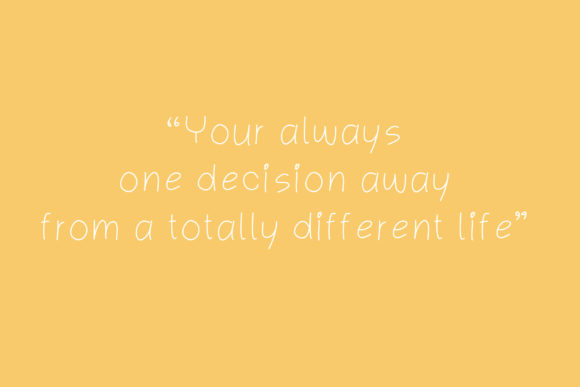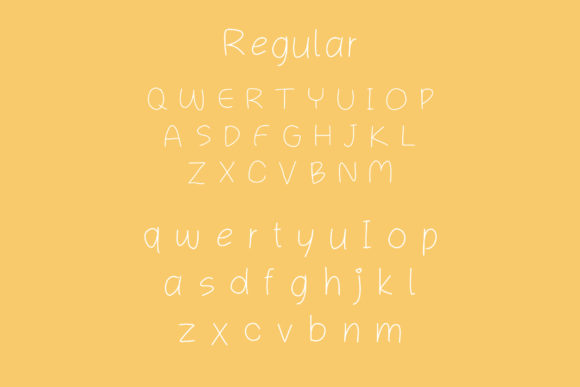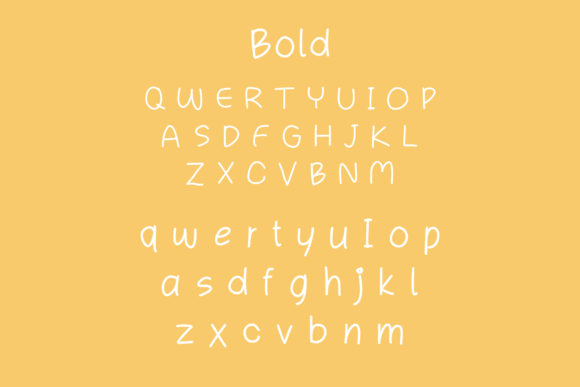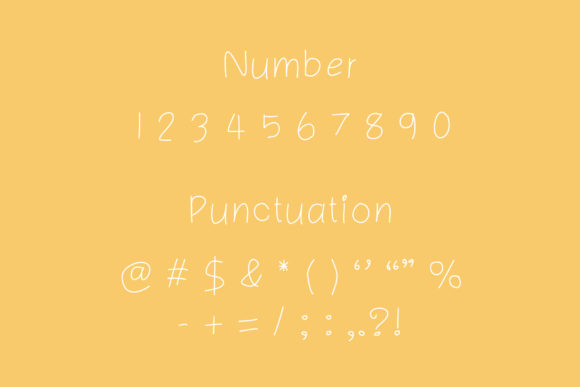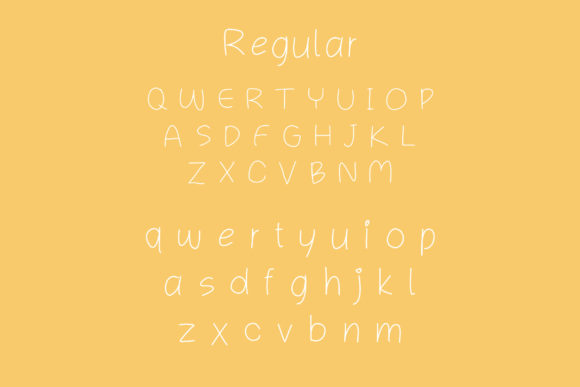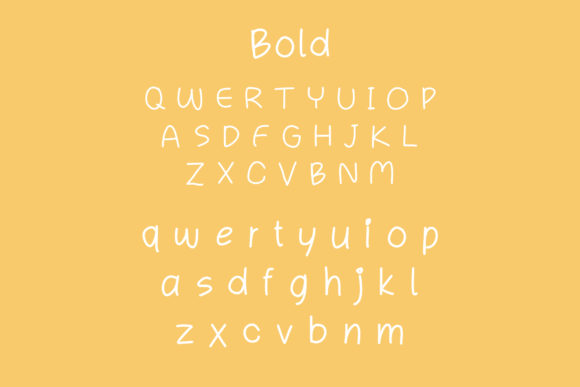
Introducing Finley Font: The Delicate and Thin Handwritten Font for Your Design Needs
Are you a designer or crafter looking for a font that can add a touch of elegance and uniqueness to your projects? Look no further than Finley Font, a delicate and thin handwritten font that is perfect for a wide range of designs. In this article, we’ll take a closer look at Finley Font, its features, and how you can use it to elevate your designs.
What is Finley Font?
Finley Font is a beautiful, handwritten font that is characterized by its delicate and thin lines. Its natural and unique style makes it incredibly fitting to a large pool of designs, from wedding invitations and party decorations to branding and packaging. Whether you’re looking to create a sophisticated and elegant design or a playful and whimsical one, Finley Font is the perfect choice.
Features of Finley Font
So, what makes Finley Font so special? Here are some of its key features:
- Delicate and thin lines: Finley Font’s lines are smooth and flowing, giving it a delicate and refined look.
- Unique and natural style: Finley Font has a distinctive, handwritten feel that sets it apart from other fonts.
- Highly versatile: Finley Font can be used for a wide range of designs, from formal to informal.
- Easy to read: Despite its delicate lines, Finley Font is easy to read, even at small sizes.
How to Use Finley Font in Your Designs
Finley Font is a versatile font that can be used in a variety of design projects. Here are some ideas to get you started:
- Wedding invitations and party decorations: Finley Font’s elegant and refined look makes it perfect for wedding invitations, party decorations, and other special occasion designs.
- Branding and packaging: Finley Font’s unique and natural style makes it a great choice for branding and packaging designs, especially for businesses that want to stand out from the crowd.
- Stationery and greeting cards: Finley Font is also perfect for creating beautiful stationery and greeting cards, adding a personal touch to your correspondence.
- Digital designs: Finley Font can be used in digital designs, such as social media graphics, blog posts, and website headers.
Tips for Getting the Most Out of Finley Font
Here are some tips for getting the most out of Finley Font:
- Experiment with different sizes and colors: Finley Font looks great in a variety of sizes and colors, so don’t be afraid to experiment and find the combination that works best for your design.
- Pair it with other fonts: Finley Font can be paired with other fonts to create a unique and interesting design.
- Use it for headings and titles: Finley Font’s delicate lines make it perfect for headings and titles, adding a touch of elegance to your design.
In conclusion, Finley Font is a beautiful and versatile handwritten font that is perfect for designers and crafters looking to add a touch of elegance and uniqueness to their projects. Its delicate and thin lines, unique and natural style, and high versatility make it a great choice for a wide range of designs. Whether you’re creating wedding invitations, branding and packaging, or digital designs, Finley Font is sure to impress.